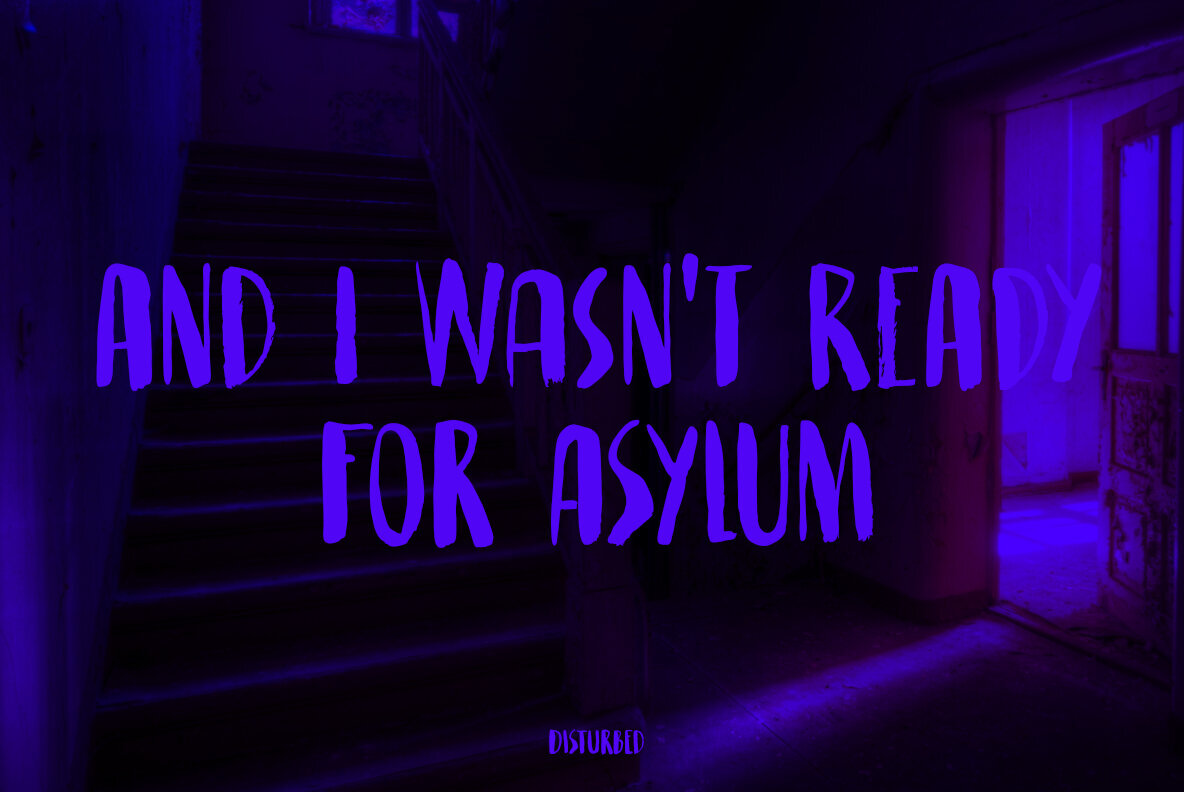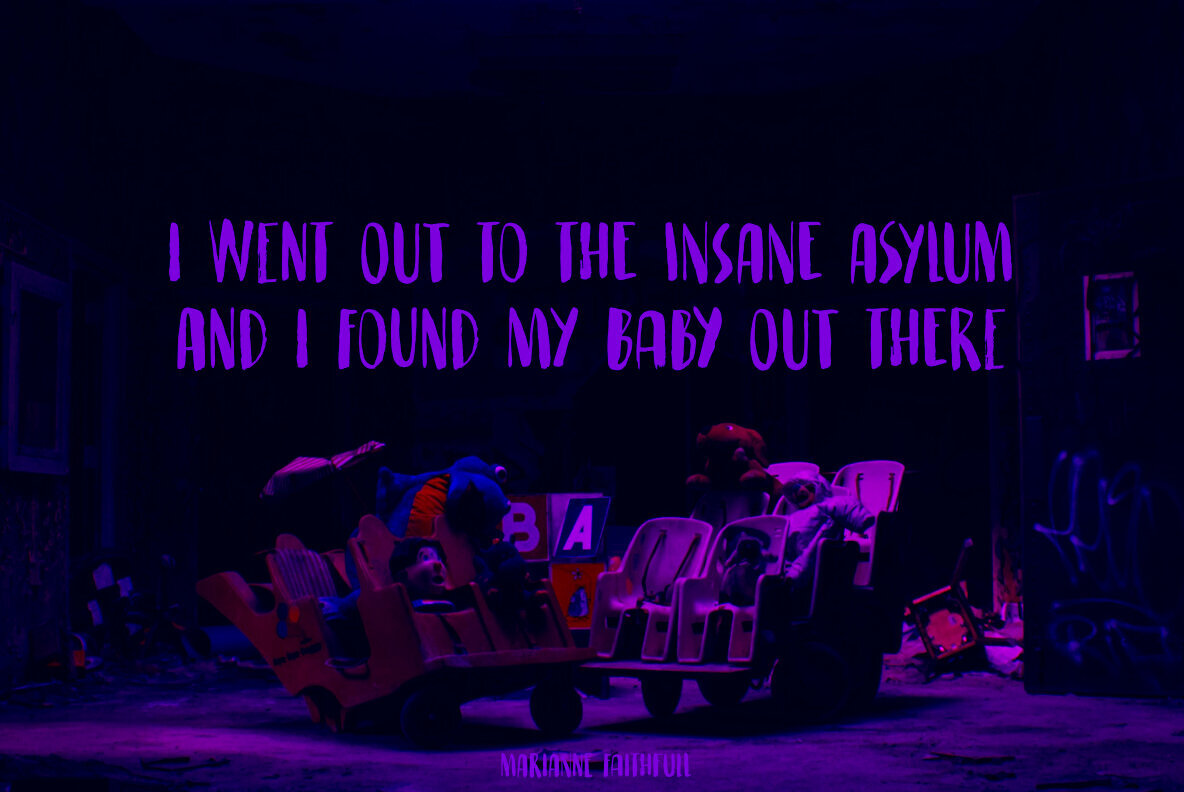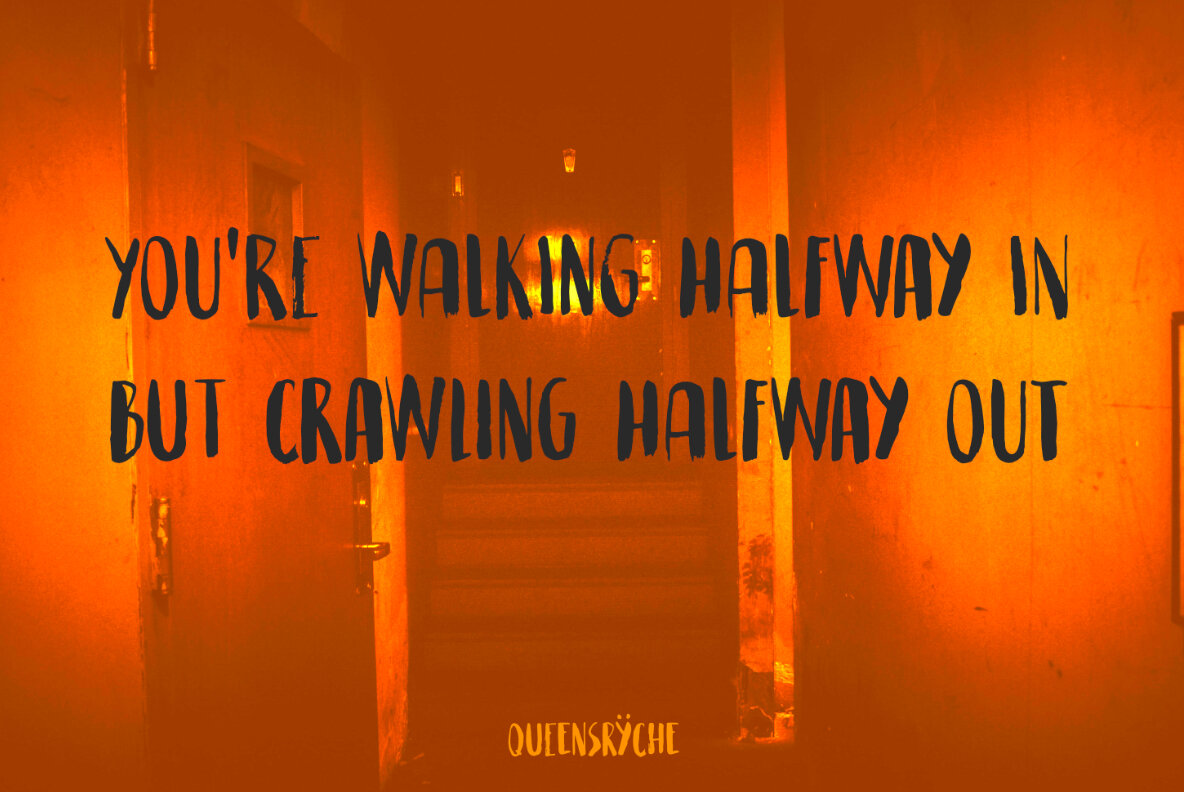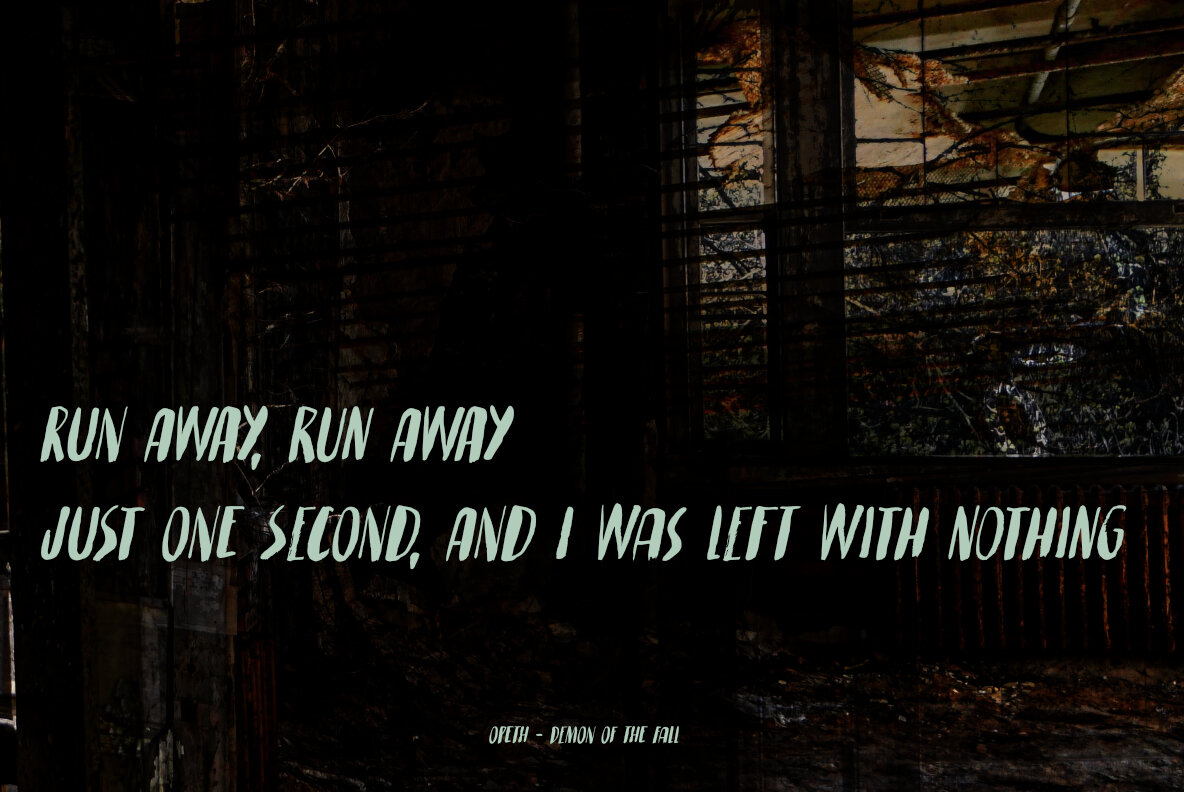
Midnight Asylum Font
I have no fantastic story on how I came up the name to share with you. I am currently not in an asylum, nor will I be in the near future. I also finished this font way before midnight, so it is just a crazy name for a scary looking font!
Midnight Asylum was made with a pencil and Chinese ink. It comes with a full set of alternates for the lower case letters, extensive language support and a cute .notdef character, which is also the alternate asterisk glyph.